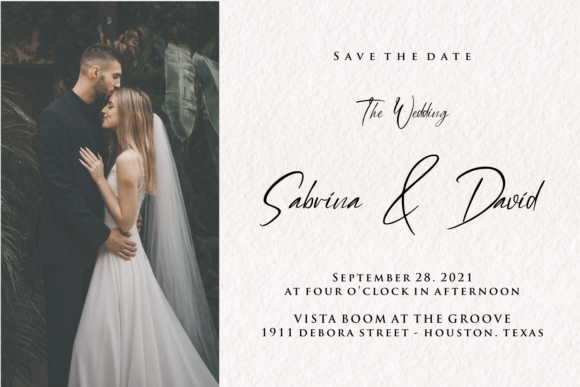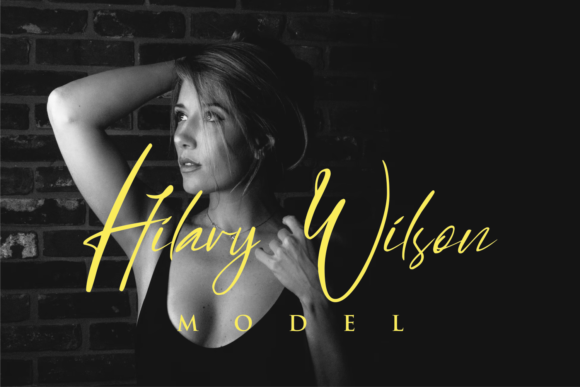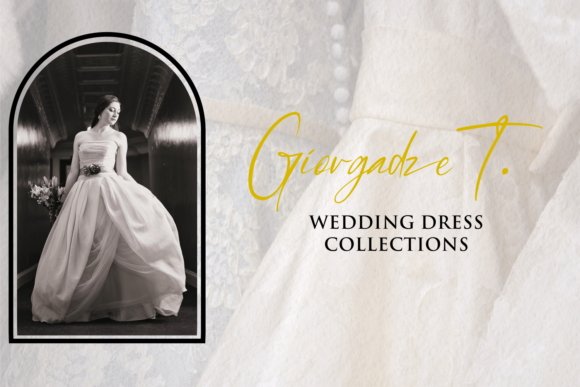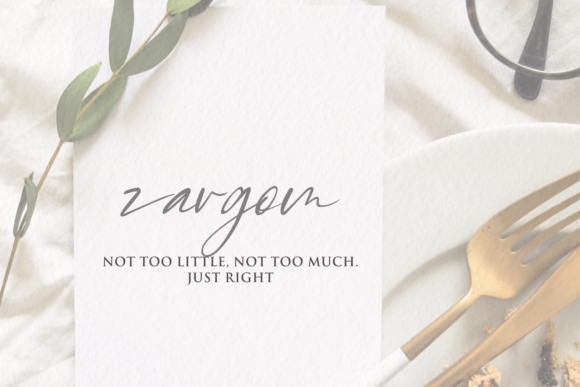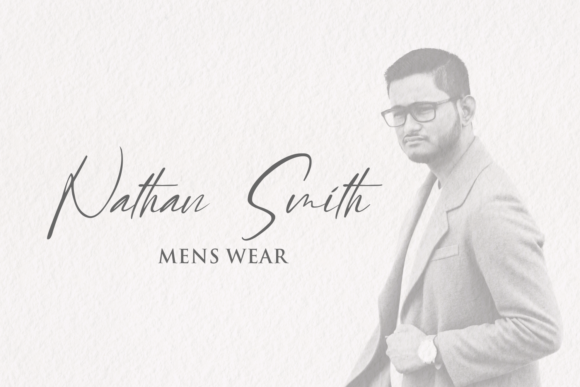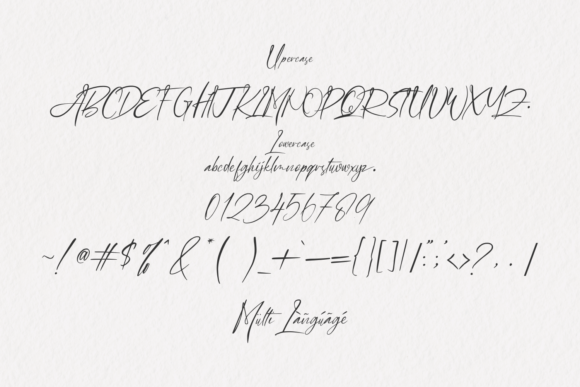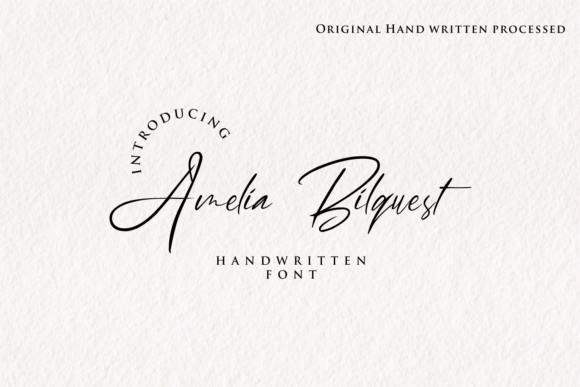
The Magical World of Amelia Bilquest Font
Have you ever been in the middle of a design project, and suddenly, it feels like something’s missing? You’re not quite sure what it is, but you know it’s not quite right. I recall a recent experience where I was working on a whimsical craft project, and it was just lacking that special something. That’s when I stumbled upon the Amelia Bilquest font, and it completely transformed my design!
Amelia Bilquest is a lovely script font featuring charming, playful characters that seem to dance along the baseline. Add this font to your most creative ideas, and notice how it makes them stand out!
An Honest Review of Amelia Bilquest Font
• ✅ The elegant, cursive flow of the font makes it perfect for creative projects, such as invitations, greeting cards, or social media graphics.
• ✅ The charming, playful characters add a touch of whimsy to any design.
• ✅ Amelia Bilquest supports OpenType features, allowing for advanced typographic control.
• ✅ The font comes with a range of glyphs and stylistic alternates, making it versatile and adaptable.
While Amelia Bilquest is an amazing font, there are a few things to keep in mind:
• ⚠️ The font may not be suitable for very formal or corporate designs, as it has a more playful and creative feel.
• ⚠️ Some characters may not work well at very small font sizes, so it’s best to use it at larger sizes (14pt or higher).
The Story Behind Amelia Bilquest Font
Amelia Bilquest was designed by a talented typographer who wanted to create a font that captured the elegance and playfulness of handwritten script. The font is named after the designer’s grandmother, Amelia, who was known for her beautiful handwriting. The designer’s goal was to create a font that would bring a touch of whimsy and charm to creative projects.
Q: What type of projects is Amelia Bilquest best suited for?
A: Amelia Bilquest is perfect for creative projects, such as invitations, greeting cards, social media graphics, and craft tutorials.
Q: Does Amelia Bilquest support OpenType features?
A: Yes, Amelia Bilquest supports OpenType features, including ligatures, stylistic alternates, and glyphs.